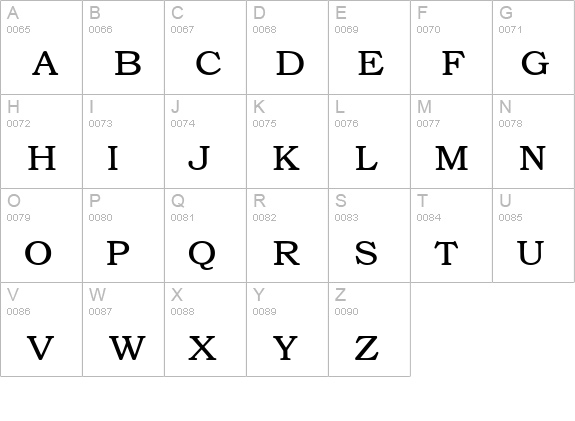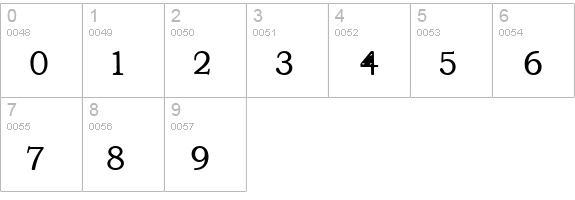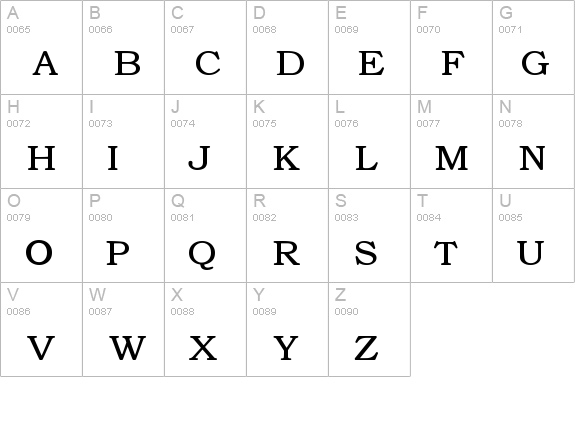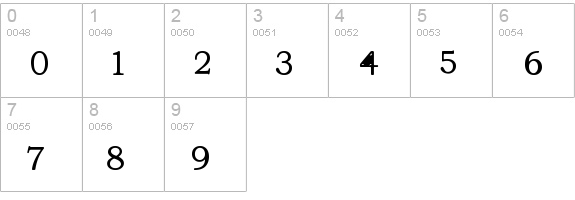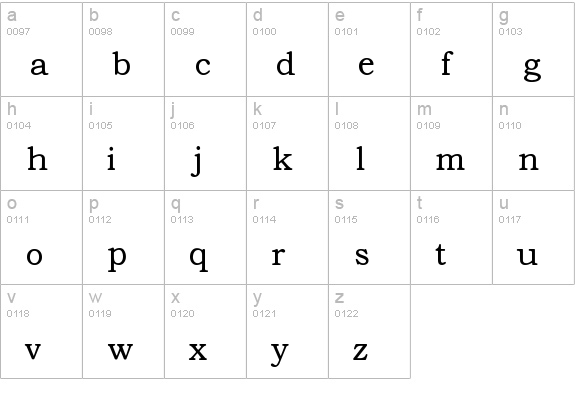
Text Serif Lighter HPLHS Font Details
Introducing Text Serif Lighter HPLHS font, a beautifully crafted typeface that exudes elegance and sophistication. With its delicate serifs and slender letterforms, this font offers a sense of refined grace that is perfect for any project that requires a touch of class. Text Serif Lighter HPLHS font boasts a light weight, making it ideal for adding a subtle, yet impactful, element to your designs. Whether you are creating a logo, branding materials, or a professional presentation, this font will effortlessly enhance your typography and elevate your overall aesthetic. One of the standout features of Text Serif Lighter HPLHS font is its versatility. It effortlessly transitions from formal to casual, making it suitable for a wide range of projects. Its clean and crisp lines ensure legibility even at smaller sizes, guaranteeing that your message will be conveyed with clarity and precision. What makes Text Serif Lighter HPLHS font even more appealing is that it is available for free download at FontsMarket.com. Yes, you read that right – this stunning font can be yours without spending a penny. So, whether you are a professional designer looking to add a new font to your collection or a hobbyist wanting to experiment with typography, Text Serif Lighter HPLHS font is the perfect choice. Don't miss out on this incredible opportunity to enhance your designs with the timeless beauty of Text Serif Lighter HPLHS font. Download it for free at FontsMarket.com and let your creativity soar to new heights.